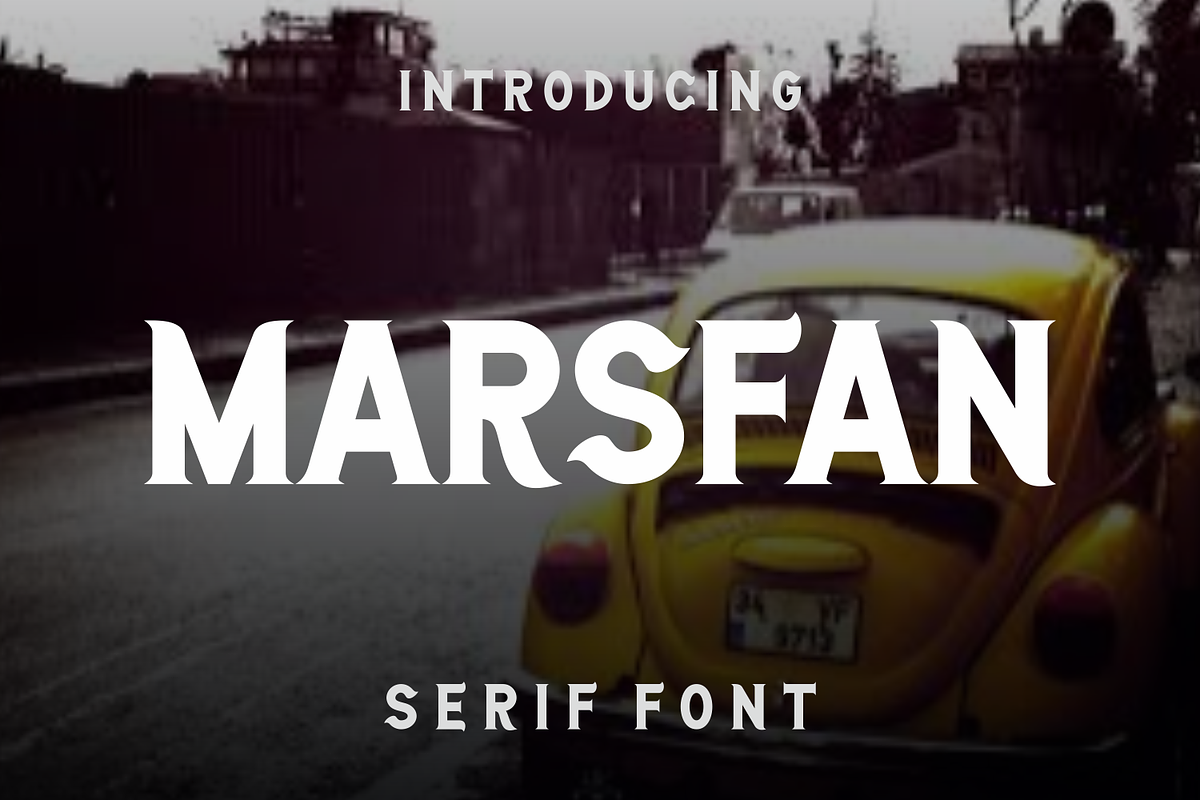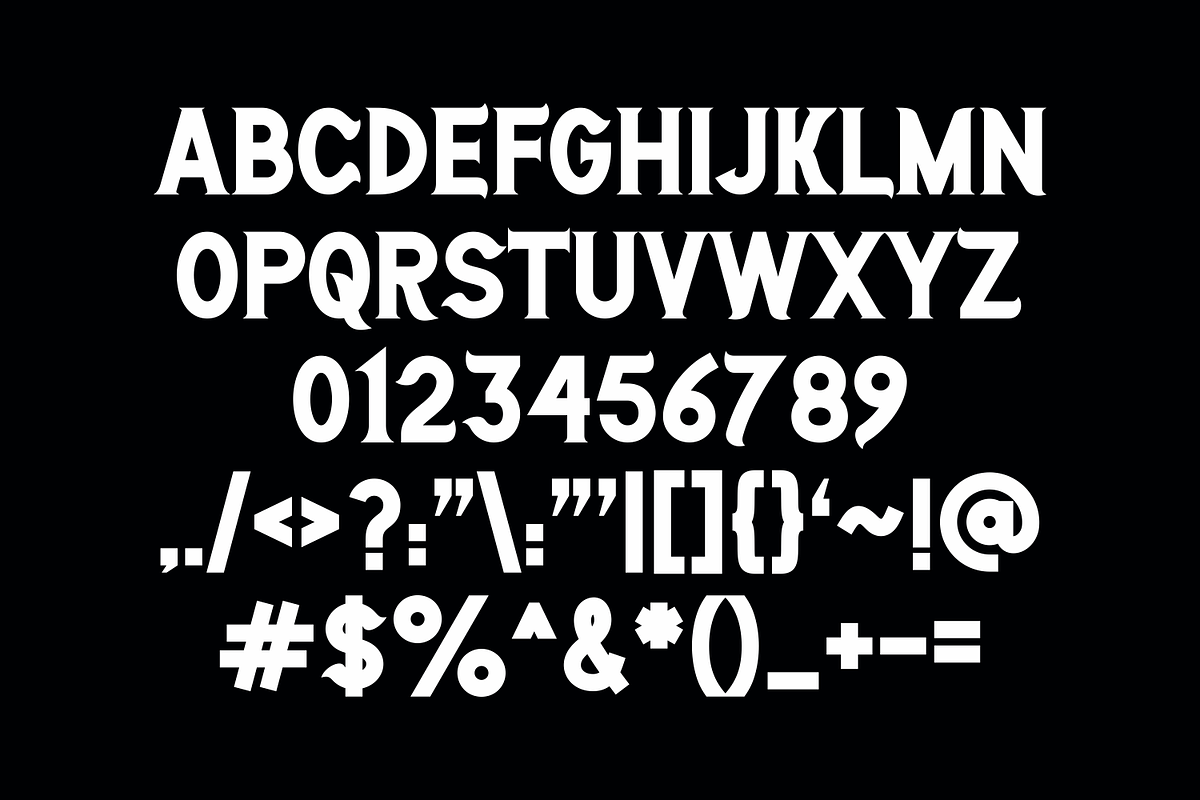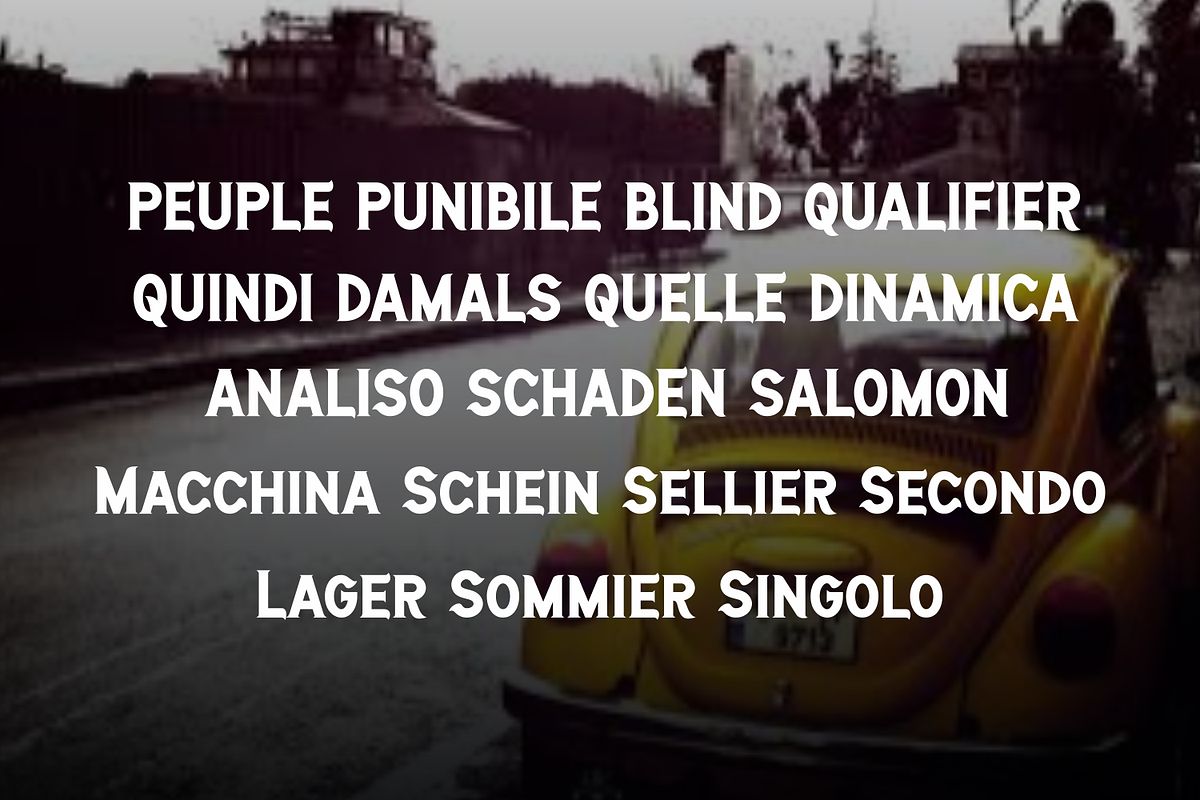
MARSFAN
MARSFAN Perfectly suited on print/screen. it’s perfect for Branding, name card, poster, logo, magazine, cover, banner, tshirt and headers, or even large-scale artwork.
Features: Uppercase & Lowercase Number *Punctuation